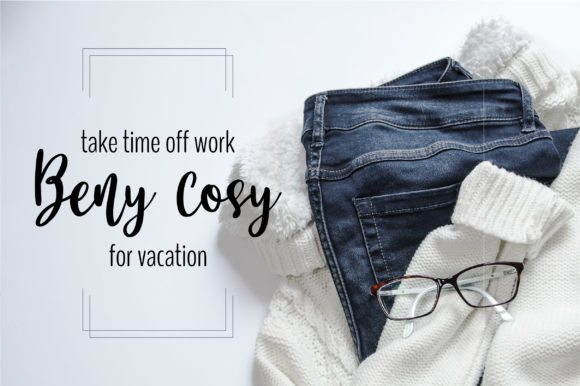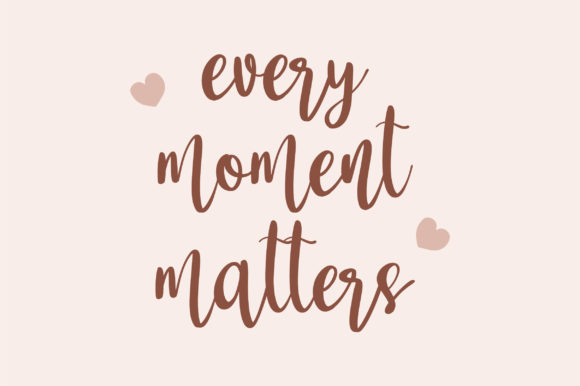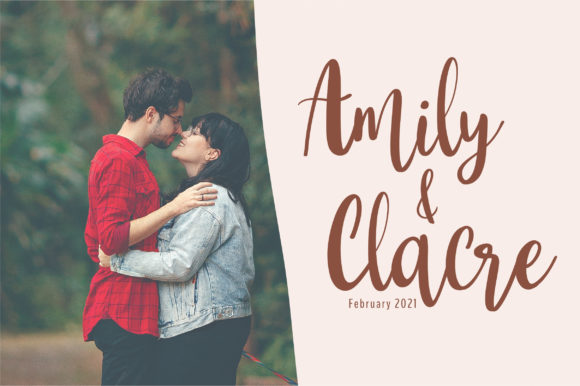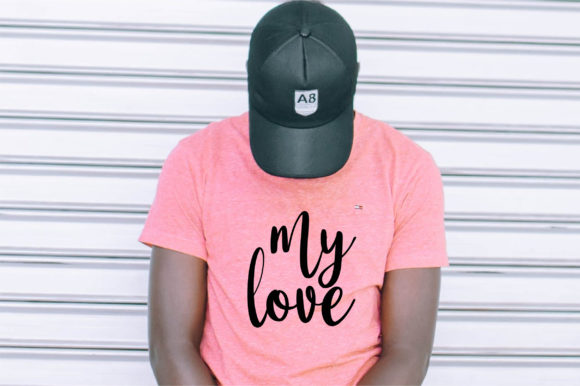
Sarah Font
About Sarah Font
Sarah is a sweet and cute handwritten font. It will add a romantic touch to any crafting project, whether it’s for web, print, moving images or anything else – Sarah will look spectacular.